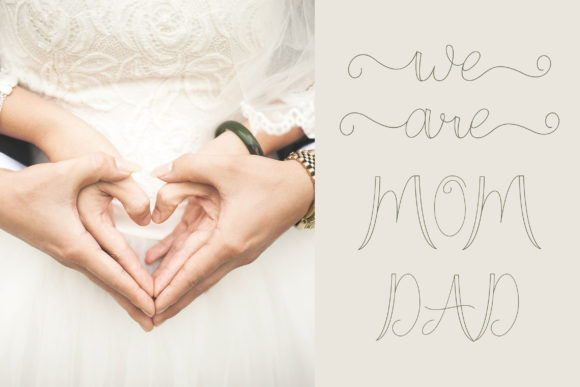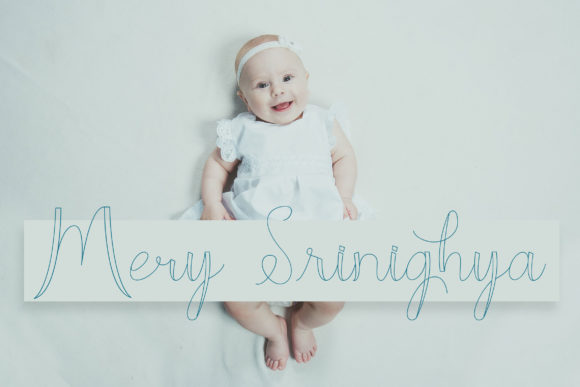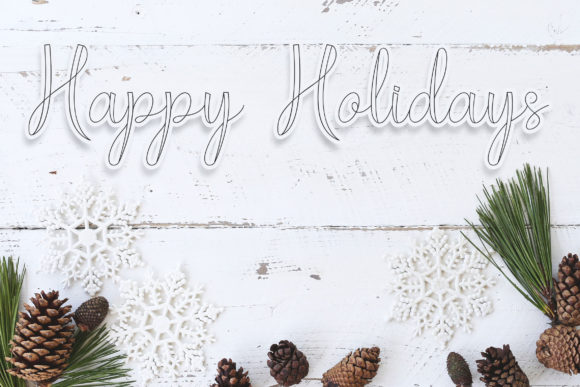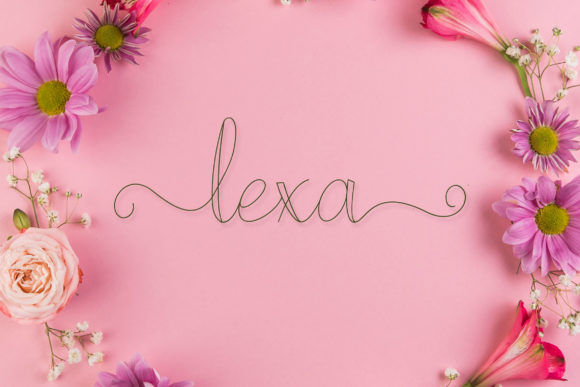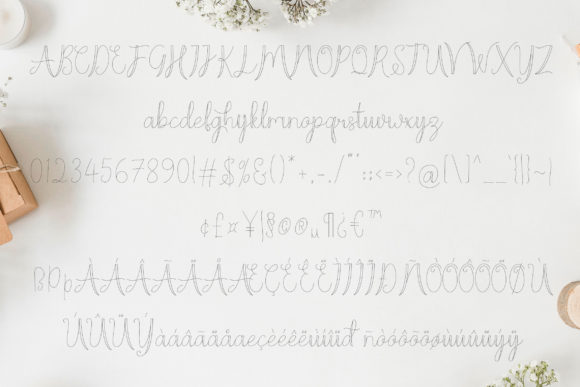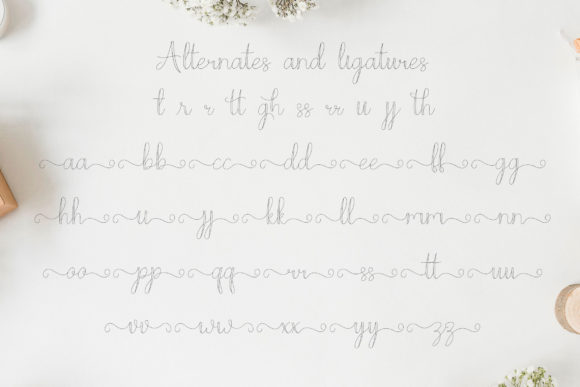
HomeScript FontsMoon Line Font Script Fonts Moon Line Font FacebookXPinterestWhatsApp Moon Line Font Poster 2 Moon Line Font Poster 3 Moon Line Font Poster 4 Moon Line Font Poster 5 Moon Line Font Poster 6 Moon Line Font Poster 7 About Moon Line Font Moon Line is a stunning and unique script, full of personality. It will add an authentic vibe to any design idea! DOWNLOAD ON CREATIVE FABRICAThis font is sold and delivered by Creative Fabrica. Font Canyon may earn a commission if you buy through this link. People also explored Salsabella Font Guttenwell Font Sykenga Font Friendly Font Social Animal Huanrain Font Emelinah Font Milkman Font Vacation Font 385 0 TagsMoon Line Font Previous articleWathelmina FontNext articleShadows Font LEAVE A REPLY Cancel reply Comment: Please enter your comment! Name:* Please enter your name here Email:* You have entered an incorrect email address! Please enter your email address here Website: Save my name, email, and website in this browser for the next time I comment. Personal Use Free BD Nokio Personal Use Free Read more about this font Critical Personal Use Free Read more about this font Masker Area Personal Use Free Read more about this font Gratisan Personal Use Free Read more about this font BLOG Free vs Paid Fonts: Why Investing in Premium Fonts Is Worth It Free vs Paid Fonts: Why Premium Fonts Are Worth It in 2025 The debate of free vs paid fonts continues in the design world. While... Top 7 Google Fonts Alternatives for Faster and Privacy-Friendly Web Design (2025) How to Install and Use Fonts on Windows, macOS, and Web Projects Best Fonts for T-Shirt Design – Top 2025 Picks